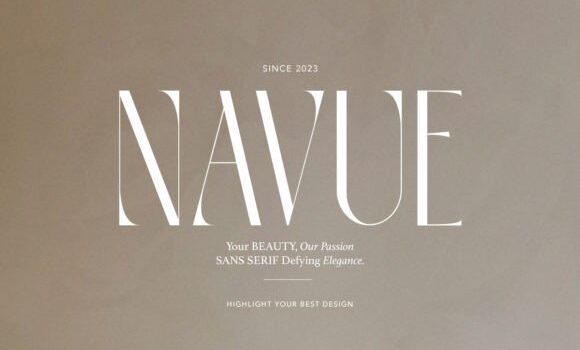
navue
Navue Font – Free Download Introduction to Navue Font The Navue font is a typeface designed with an elegant and feminine style, making it suitable for enhancing the quality of your product branding. 📸 Preview Gallery 6 images 📌 Product